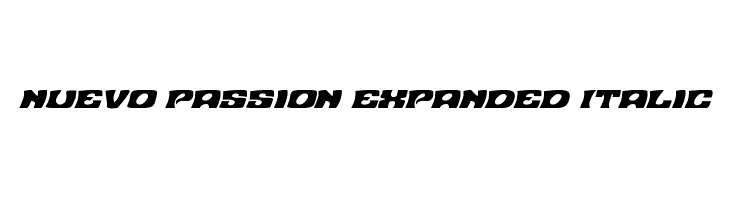
A bold, modern font with thick strokes and strong visual impact.
Bold, modern font with a strong, blocky style.
( Fonts by Manuel Viergutz - Typo Graphic Design - www.typographicdesign.de )
A bold, playful font with irregular, hand-drawn shapes and a unique, artistic flair.
( Fonts by Manuel Viergutz - Typo Graphic Design - www.typographicdesign.de )
A bold, playful font with irregular, organic shapes and a hand-cut appearance.
( Fonts by Dieter Steffmann )
An ornate and decorative font with intricate swirls and flourishes.
( Fonts by Manuel Viergutz - Typo Graphic Design - www.typographicdesign.de )
A playful, bubbly font with characters formed by interconnected dots, ideal for creative projects.
( Fonts by Manuel Viergutz - Typo Graphic Design - www.typographicdesign.de )
A playful, bubble-inspired font with interconnected dots creating a whimsical look.